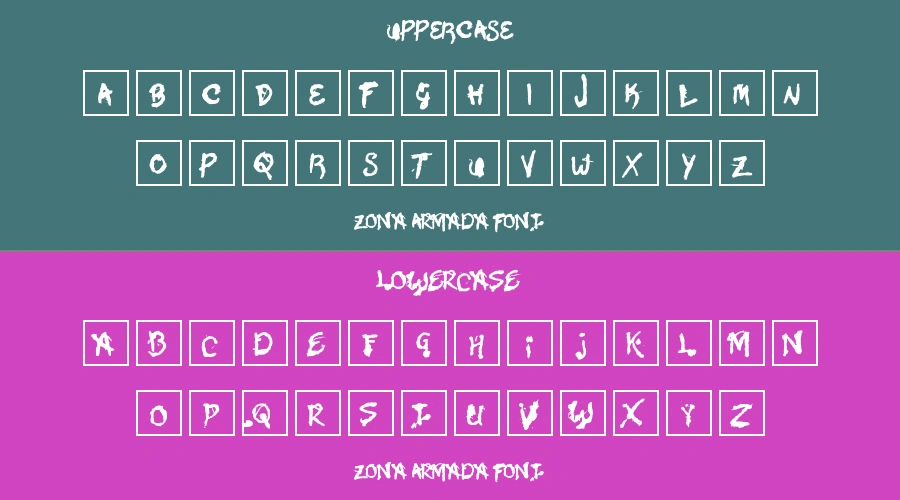
About Zona Armada Font
Designed with precision, Zona Armada Font merges original character with technical precision in every character. This versatility makes it particularly effective for motion graphics, where reliability and brand alignment directly impact communication quality. Each letterform demonstrates meticulous craftsmanship.
Technical excellence shines through elements like systematic design and period-specific forms, enhancing typographic versatility. In creative titles settings, Zona Armada Font proves its worth through superior footnote clarity. The thoughtful execution of contrast level and lifestyle alignment ensures professional results.